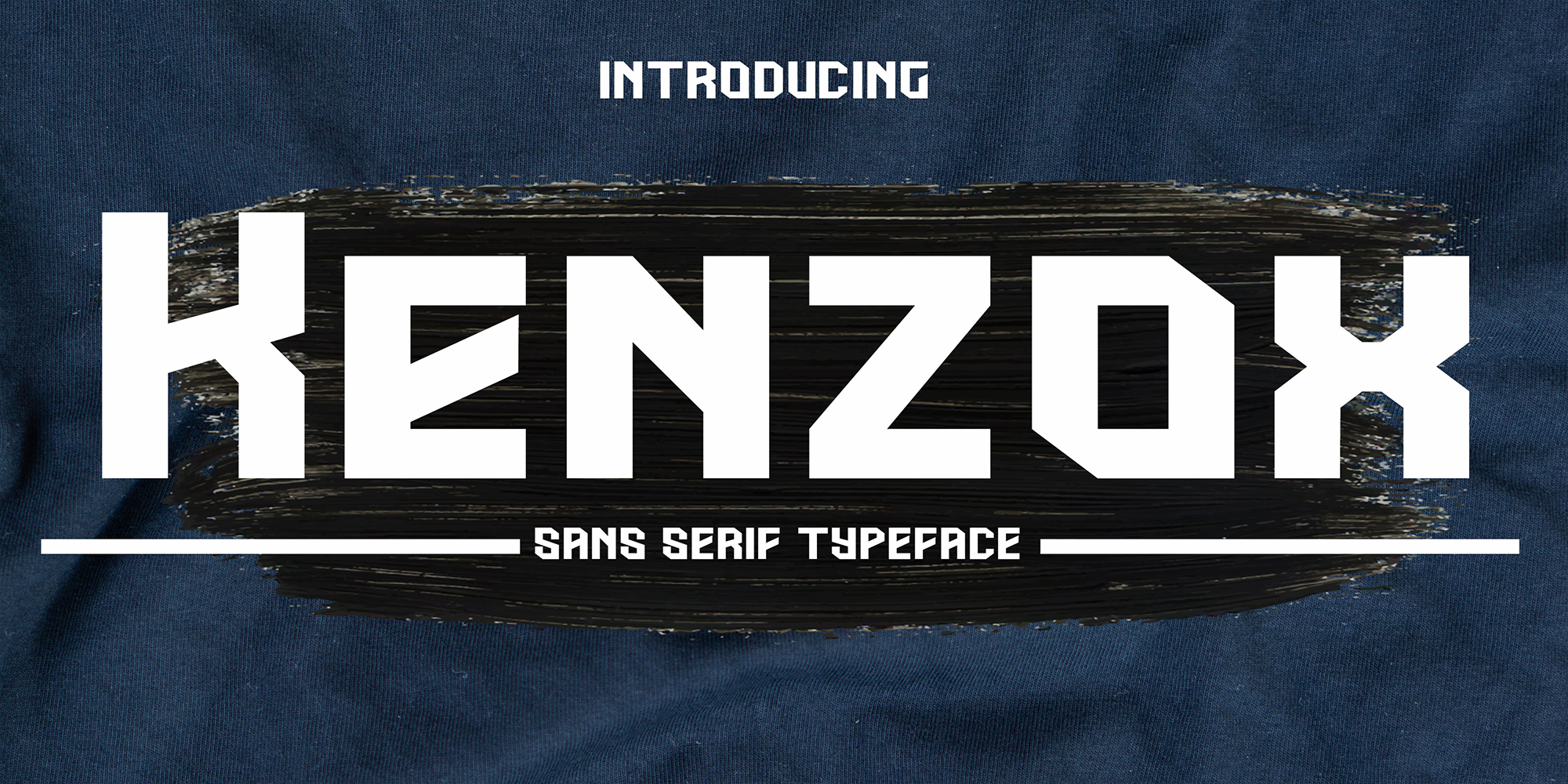
The Kenzox Font excels in contemporary tech branding, cutting-edge product packaging, futuristic interface design, innovative startup identities, modern advertising campaigns, digital platform communications, progressive corporate materials, and forward-thinking design projects that require distinctive modernity with sleek sophistication.
What makes the Kenzox Font Free Download so exciting is its perfect fusion of geometric precision with contemporary edge, creating a typeface that embodies innovation and forward-thinking design philosophy. This font features sharp, angular letterforms with distinctive character shapes that suggest technological advancement and creative innovation. Its modern aesthetic speaks to audiences who appreciate cutting-edge design and progressive thinking, making it ideal for brands seeking to establish themselves as industry leaders and innovators in competitive technology and creative markets.
The Kenzox Font family encompasses comprehensive weight variations from Light to Black, each maintaining the font's signature contemporary character and innovative appeal. The collection includes Regular, Medium, Semibold, Bold, and Heavy styles with corresponding italic variants for enhanced design flexibility. This extensive font system provides designers with versatile typography that works seamlessly across digital platforms, print materials, and branding applications while preserving the distinctive modernity that sets progressive brands apart from conventional competitors.
Perfect for tech startups, innovative agencies, contemporary brands, and creative professionals working on next-generation design projects that must capture attention and convey forward-thinking vision. The font's modern appeal makes it essential for brand strategists, UI/UX designers, and marketing teams developing communications that must resonate with tech-savvy audiences. Download Kenzox Font Free Download today and revolutionize your design projects with this exceptional typeface that perfectly captures the spirit of innovation and contemporary design excellence for modern applications.